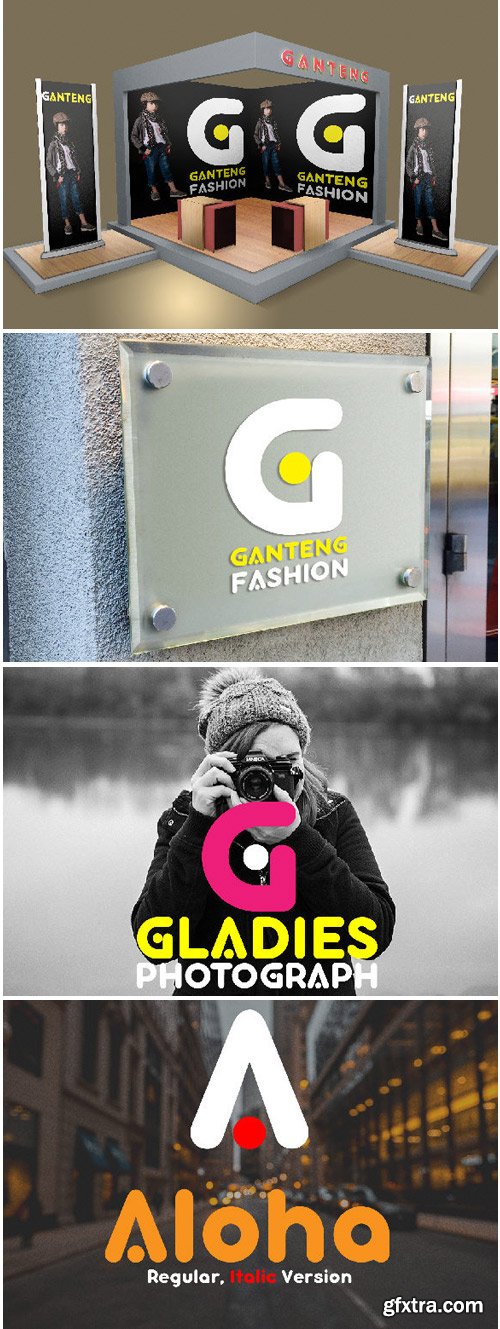
阿拉华字体
Aloha Font
The Aloha is highly legible sans serif font. It has a striking style which can be used for logos, slogans, newspapers, magazines, books, apparel, web and corporate use, and much more!